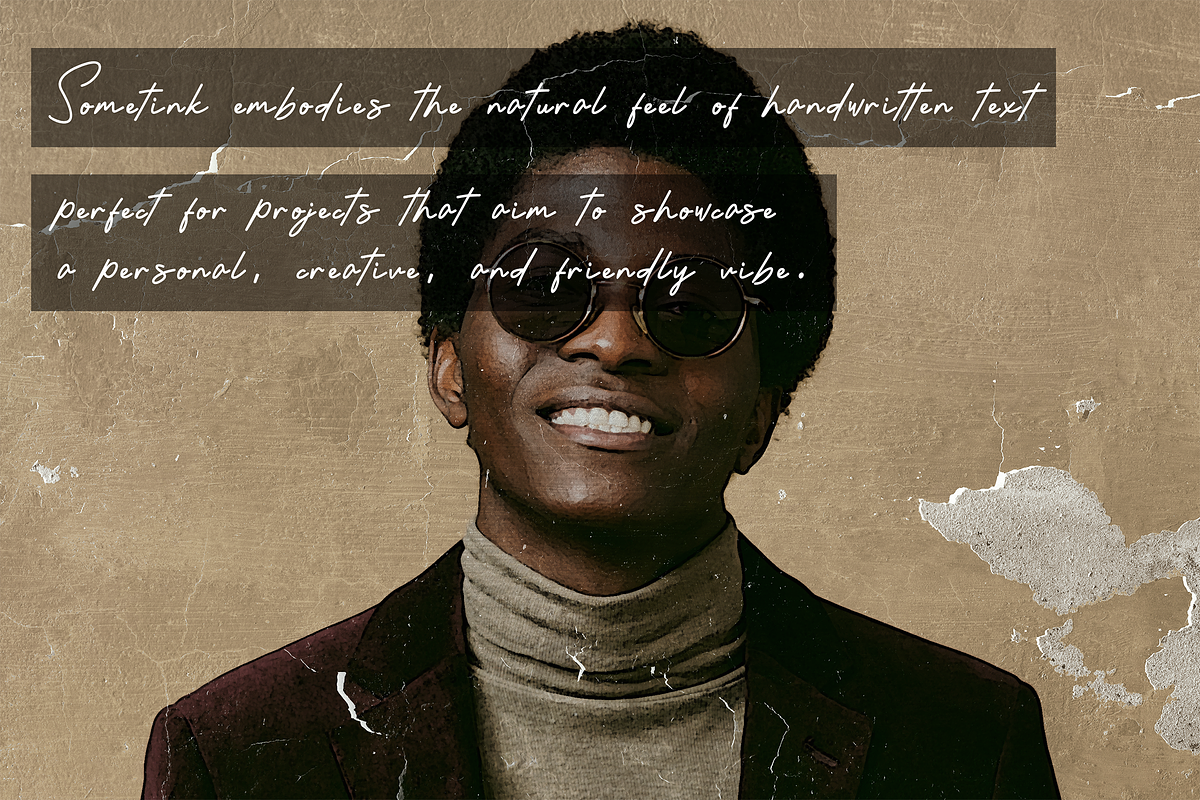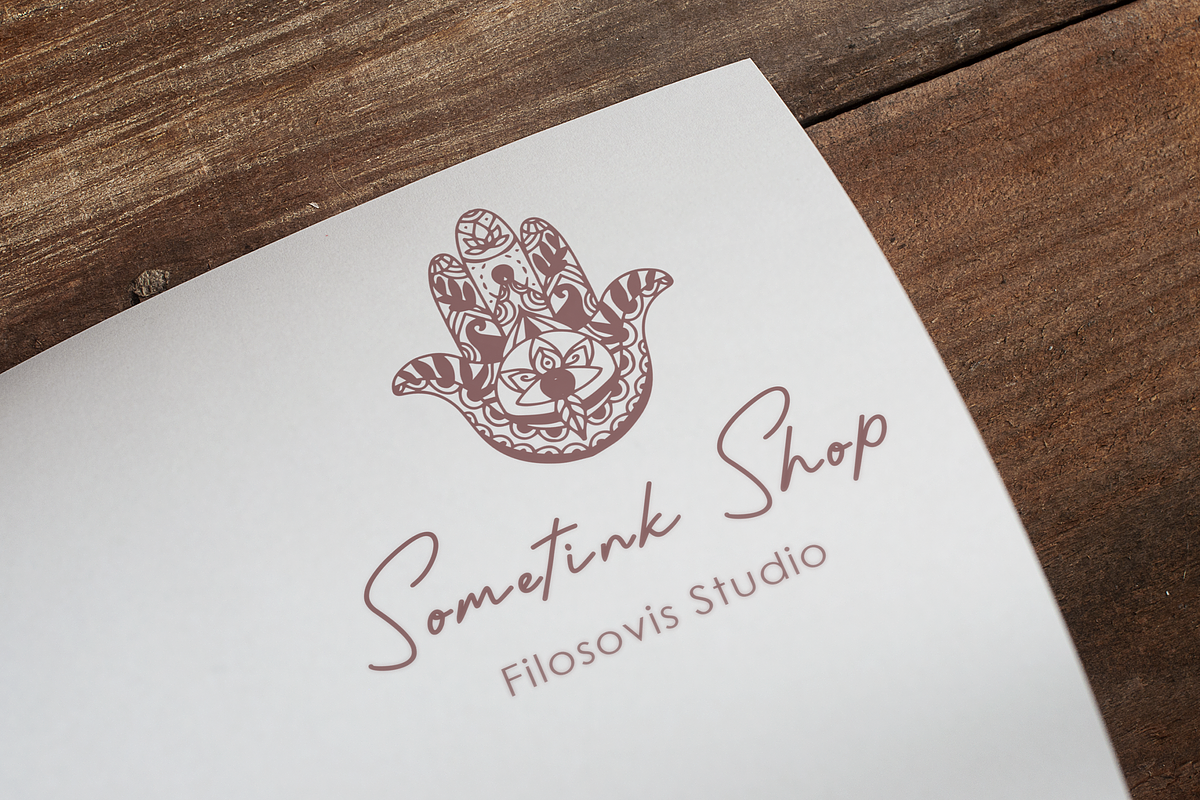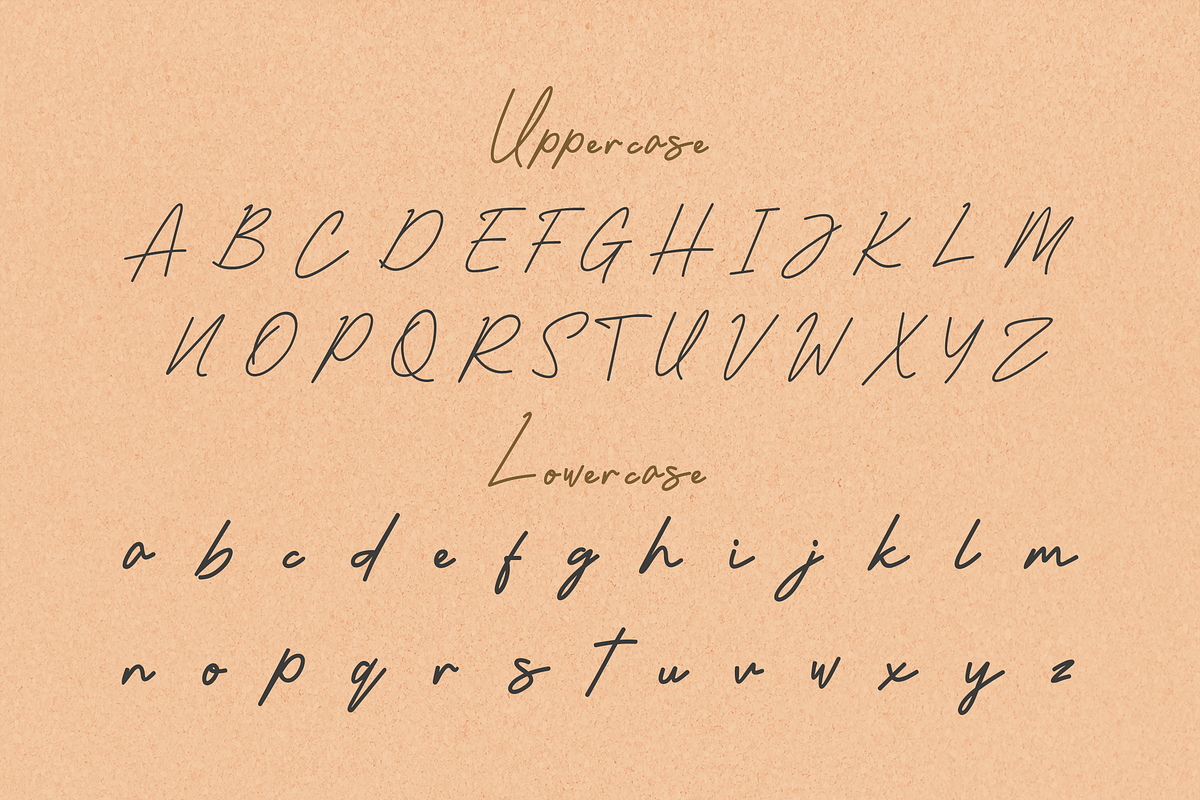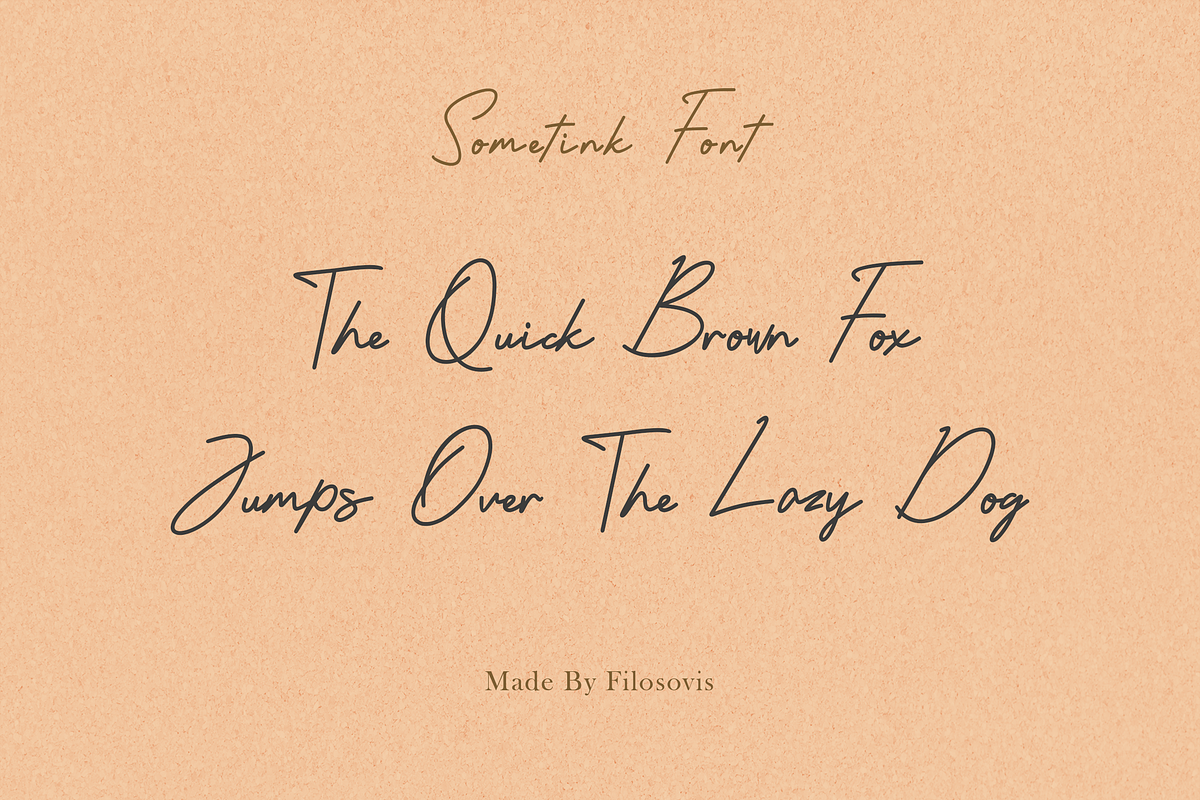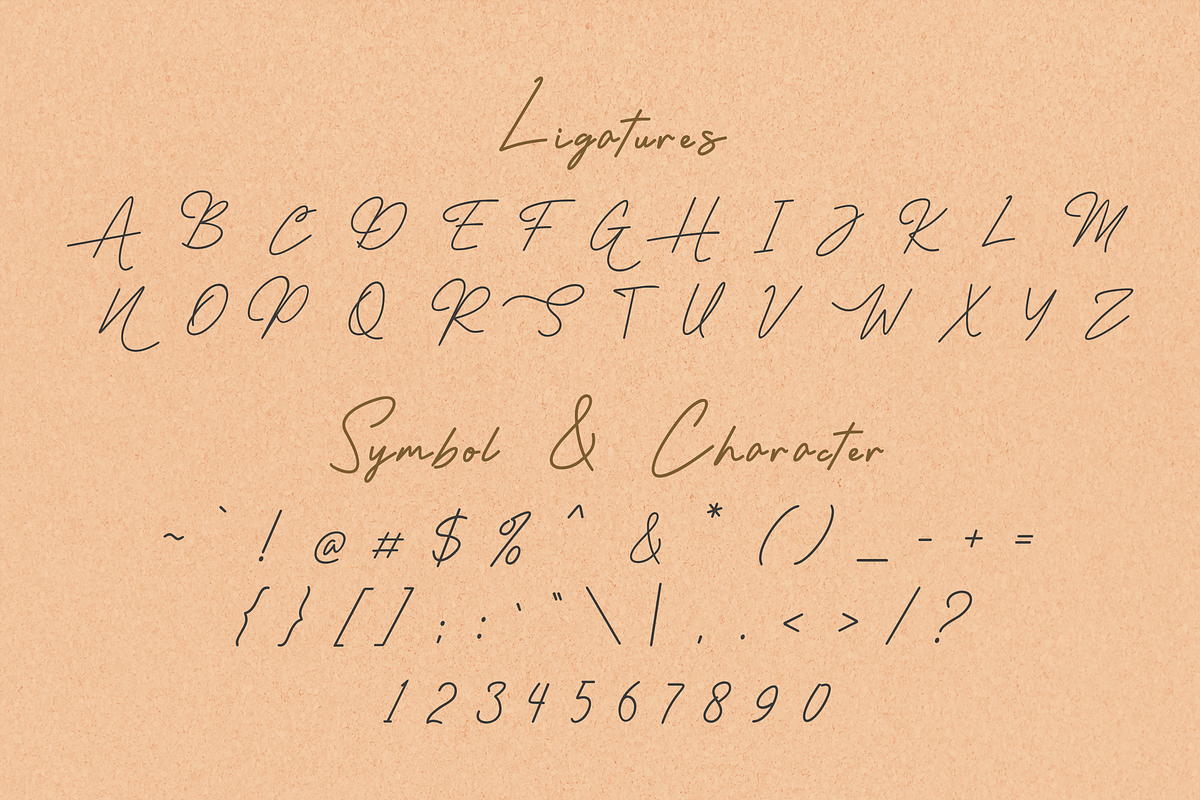
Sometink | Handwritten Font
Sometink is a handwritten font that adds a playful twist to any design. With its whimsical letterforms and unique charm, it's perfect for eye-catching headlines, vibrant posters, and playful branding projects. Infuse your creations with joy and personality with Sometink!